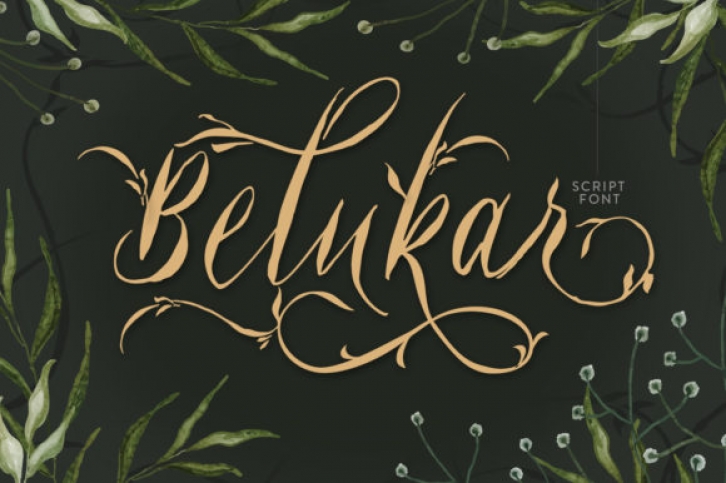
Belukar is a dainty and delicate handwritten font. This lovely script font has a wide spectrum of applications ranging from greeting cards to headlines and is guaranteed to add a romantic feel to your next project.